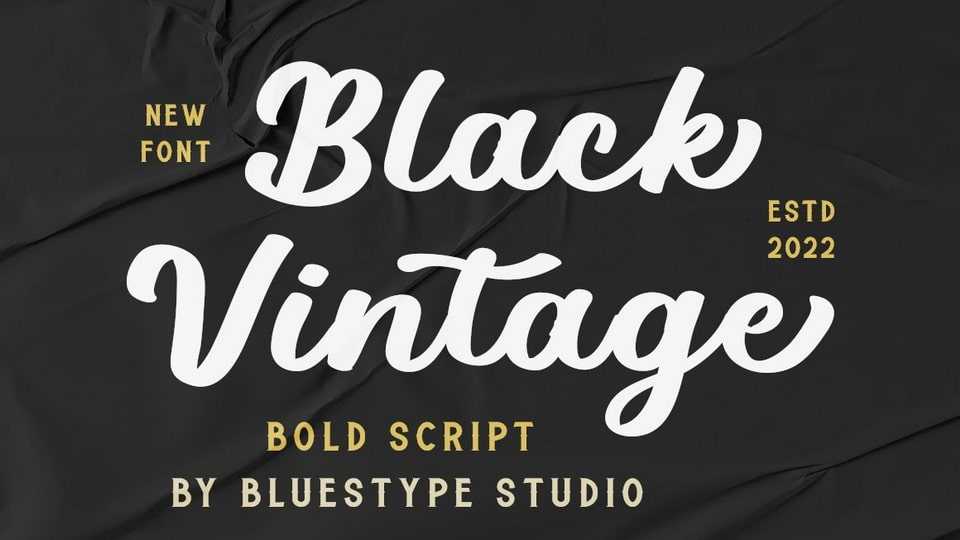
Download Black Vintage font, a vintage script calligraphy with beautiful and bold characters. Black Vintage font is suitable for t-shirt designs, logotype, branding, quotes, social media, watermarks, clothing, YouTube videos.